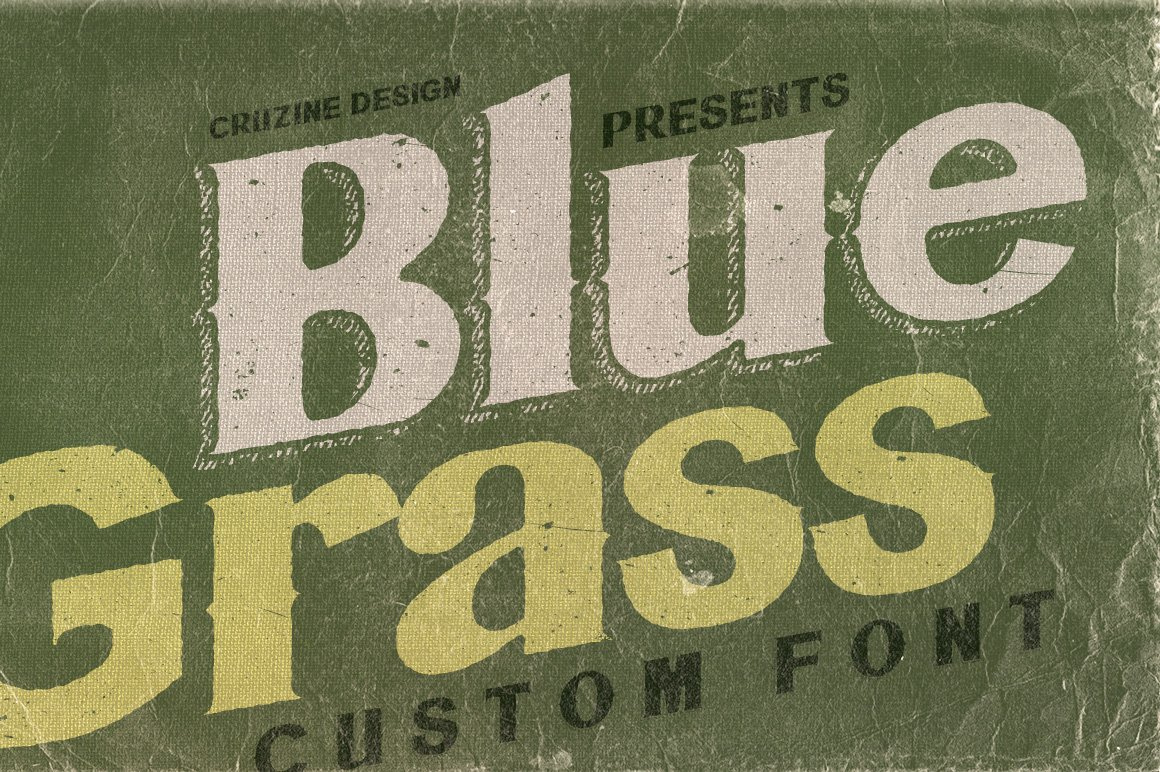
Bluegrass Custom Font
Bluegrass Custom Font is perfect for country music venues, traditional folk festivals, rustic bourbon distilleries, authentic barbecue restaurants, heritage craft workshops, mountain retreat signage, acoustic music promotions, rural tourism marketing, old-fashioned general stores, and Southern hospitality brands.
Bluegrass Custom Font creates excitement because it embodies the soulful authenticity and deep-rooted traditions of American folk culture with its handcrafted letterforms and mountain-inspired character design. The font's organic curves and traditional aesthetic instantly evoke the rolling hills and musical heritage of bluegrass country, making any brand appear genuine and authentically rooted in American folk tradition. Its carefully crafted rustic details and musical character create an immediate sense of cultural heritage that captivates audiences seeking authentic experiences, traditional craftsmanship, and products that celebrate the timeless appeal of American folk culture and musical storytelling.
The Bluegrass Custom Font family includes multiple weights and styles: Regular, Bold, Light, Medium, Italic, Condensed, Extended, Rustic, Traditional, and Acoustic versions. Each variant maintains the font's signature folk character while offering different levels of traditional styling and cultural authenticity suitable for various heritage and music-related applications.
This authentic typeface brings the genuine spirit of American bluegrass tradition into contemporary design projects with remarkable cultural integrity and folk appeal. Bluegrass Custom Font Free Download provides music brands and cultural organizations with access to premium folk-inspired typography that embodies the essence of traditional American music and rural heritage. The font's authentic design and cultural credibility make it ideal for businesses seeking to establish meaningful connections with audiences who appreciate traditional music, folk culture, and the authentic spirit of American heritage. Whether you're creating branding for music venues, designing materials for cultural festivals, developing signage for heritage attractions, or producing marketing content for traditional craft enterprises, this font delivers the authentic bluegrass atmosphere that resonates with audiences seeking genuine folk experiences, traditional music, and the heartfelt storytelling that defines American bluegrass culture. Its versatile design ensures excellent performance across both rustic printed materials and contemporary digital platforms while maintaining the character of authentic folk typography. The font excels in applications requiring cultural authenticity and musical credibility. Music industry professionals appreciate its ability to convey traditional heritage while remaining highly functional for various cultural communications and folk music promotional materials. The comprehensive character set includes musical symbols and extensive language support, making it perfect for American heritage brands and traditional music organizations seeking to communicate authentic folk culture, musical tradition, and bluegrass heritage to diverse audiences who cherish traditional American music, embrace folk storytelling, and seek the heartfelt authenticity that comes from generations of musical tradition and the soulful spirit of bluegrass culture that connects people through shared musical heritage and authentic storytelling.